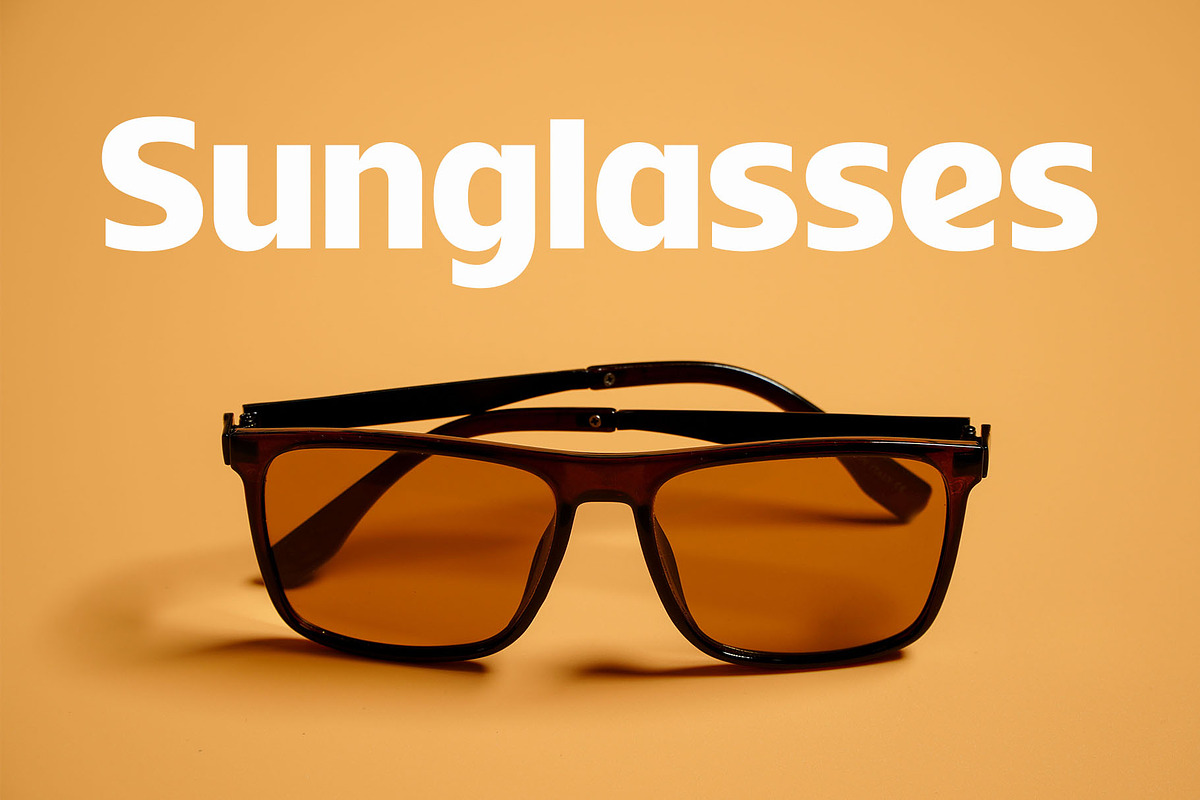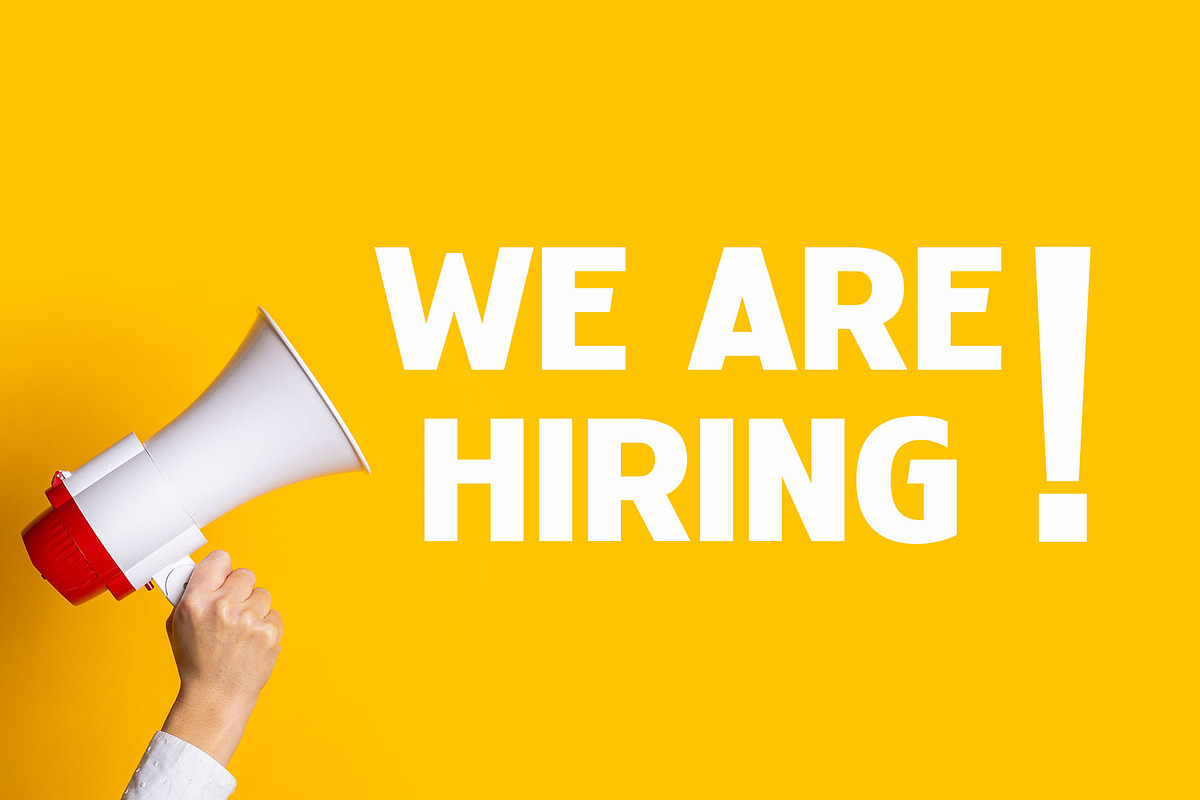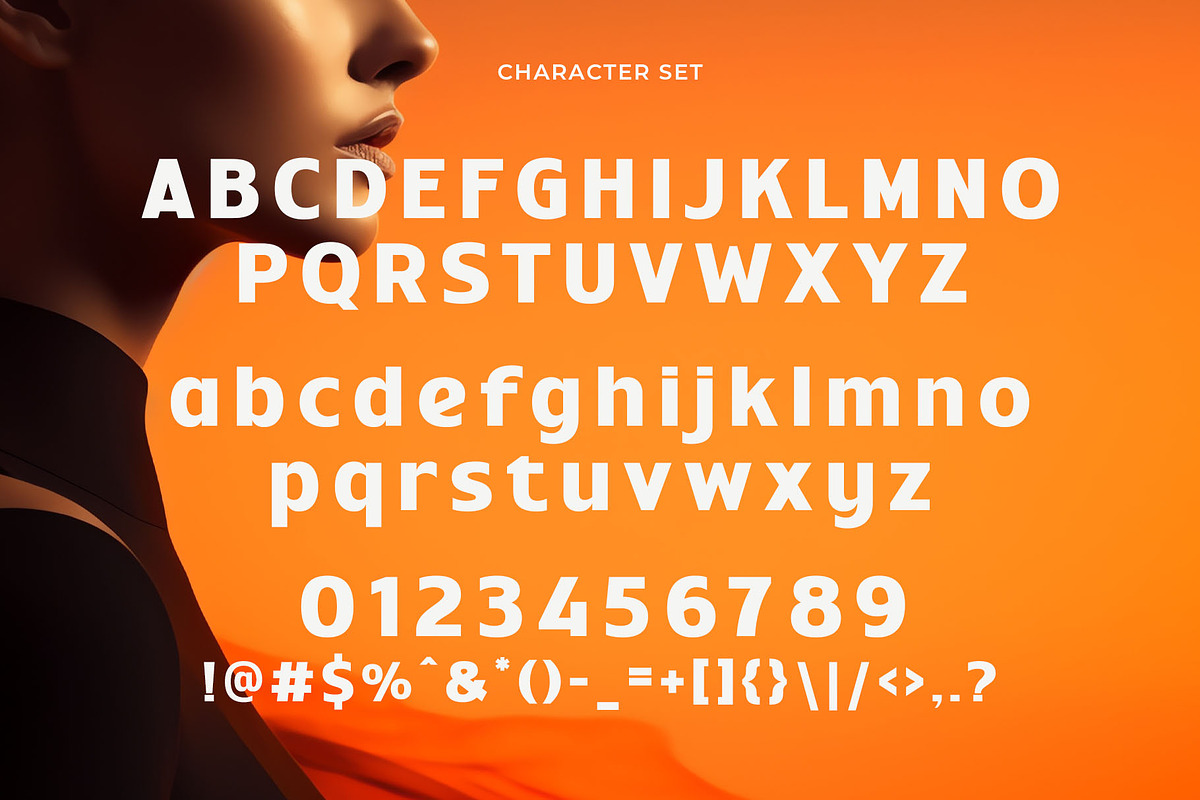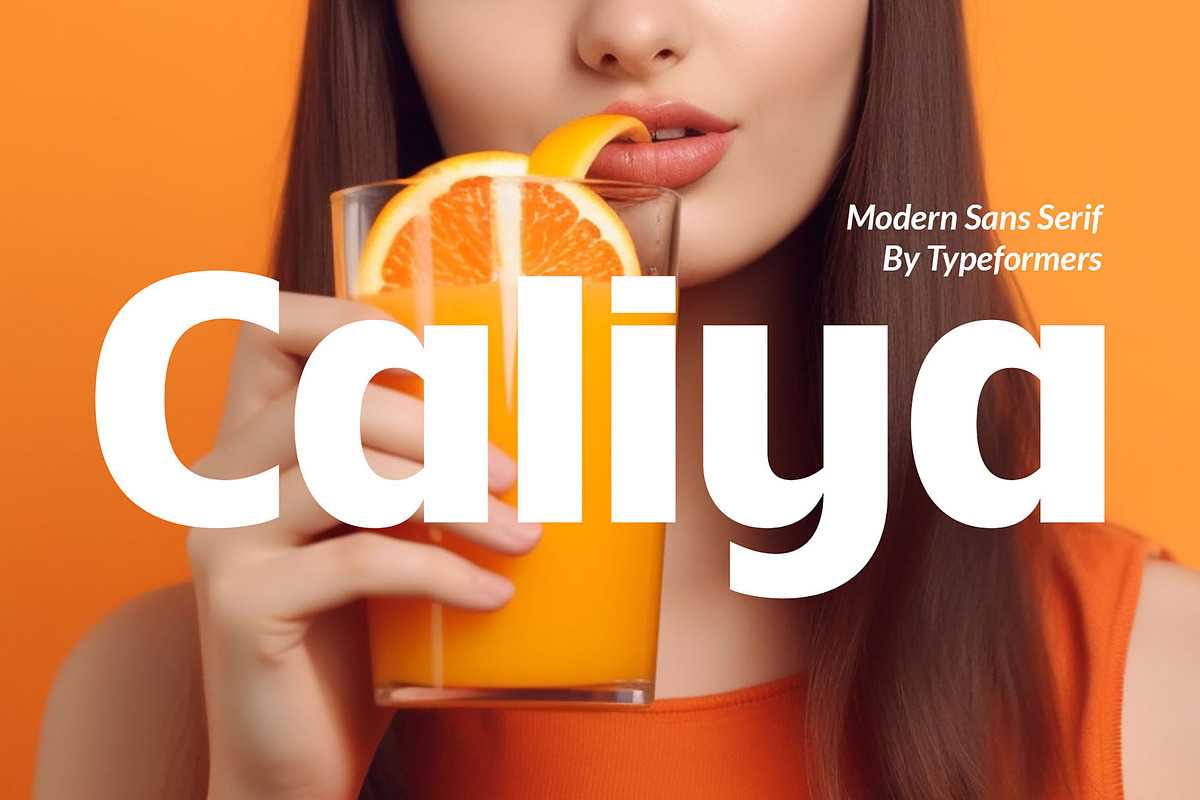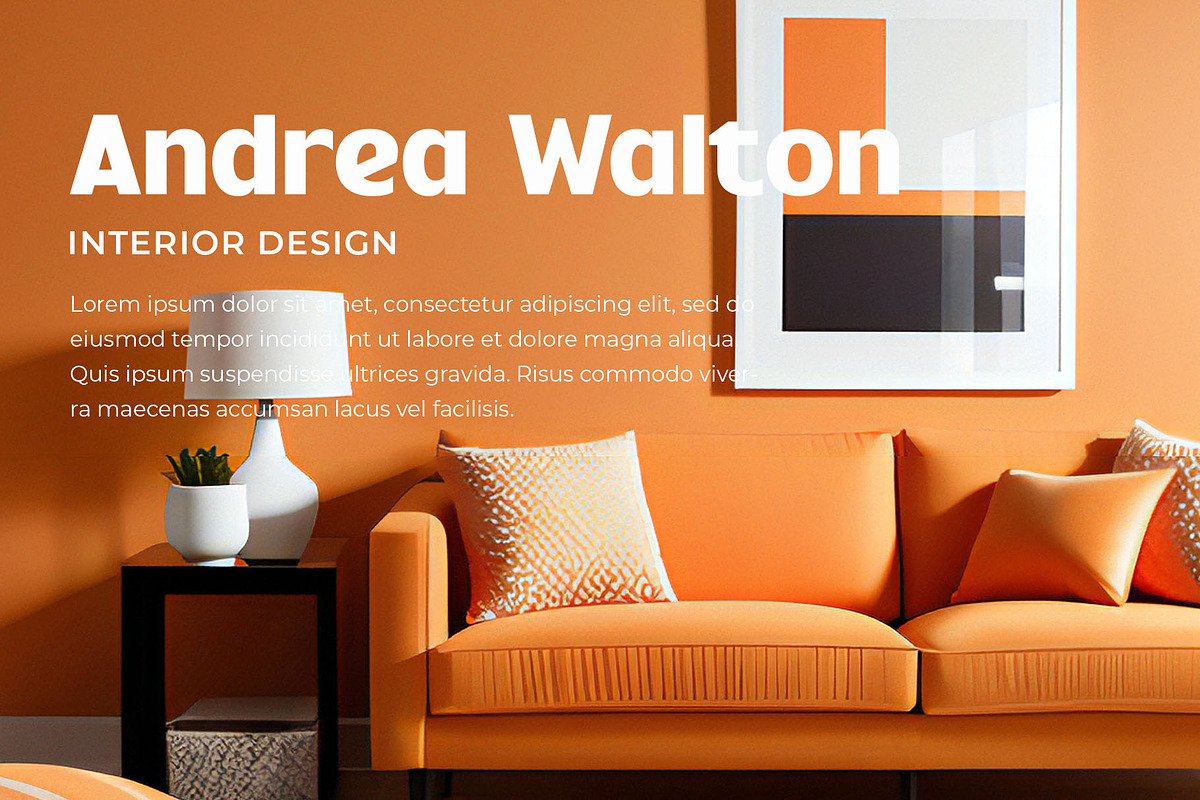
Caliya - Modern Sans Serif
Introducing Caliya - Modern Sans Serif. Caliya is a modern and simple font, best used as a display for headings, logos, branding, magazines, product packaging and invitations.